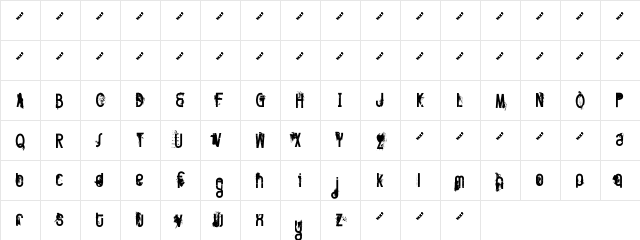
FT Twisted Ontogenesis Demoversion Free Font
FT Twisted Ontogenesis Demoversion
Design Context for FT Twisted Ontogenesis
FT Twisted Ontogenesis is a composed and adaptable typeface that performs quietly and consistently across a wide range of design contexts.